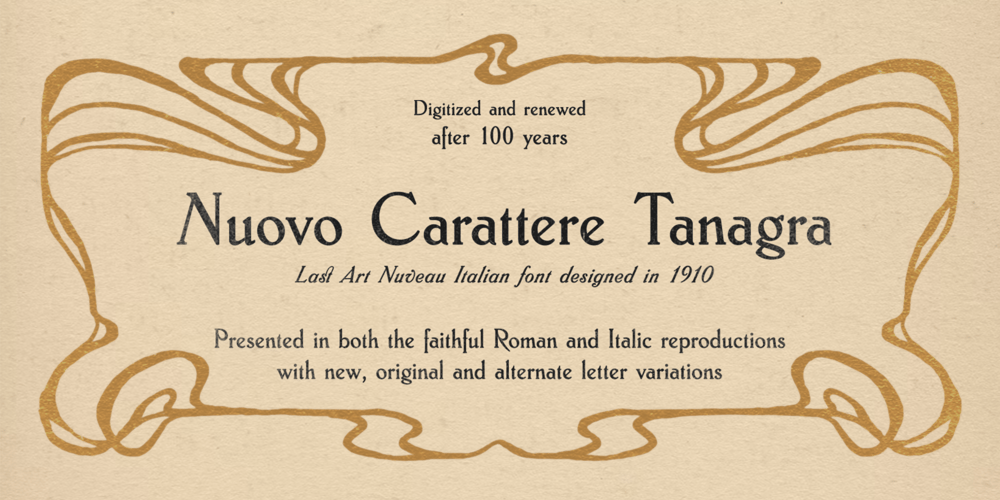
Flanker Tanagra Font Family was designed by Leonardo Di Lena and published by Flanker. Flanker Tanagra contains 2 styles and family package options. In order to give new imput to the art of typeface design in Italy, Nebiolo Company held, in March 1910, an artistic competition for a new alphabet conception, so the best-ranked design would be transformed into a real new typeface. 42 competitors participated and, although the first prize was not technically awarded, “Ancora” resulted as the best typeface, created by the designer-typographer Natale Varetti of Turin. Nonetheless, the new alphabet was transformed into a full-fledged metal typeface in 1924, renamed “Tanagra” in honor of the Greek city in the center of Boeotia.The new font, although not significantly detached from the classical Roman form, introduced decorative elements that allowed its use in both rational and artistic compositions. This font appears very clear and easy to read, with very high ascenders and some decorations that make it distinctly retrò.Finally, after almost 100 years, this peculiar character has been digitized taking it as a model the shapes of the 16 points size (other dimensions have significantly different contrasts and proportions). To adapt it to modern use, some glyphs have been modified, but all the originals are available as Stylistic Alternate OTF, as well as all the swashed variants while the missing ones were added.